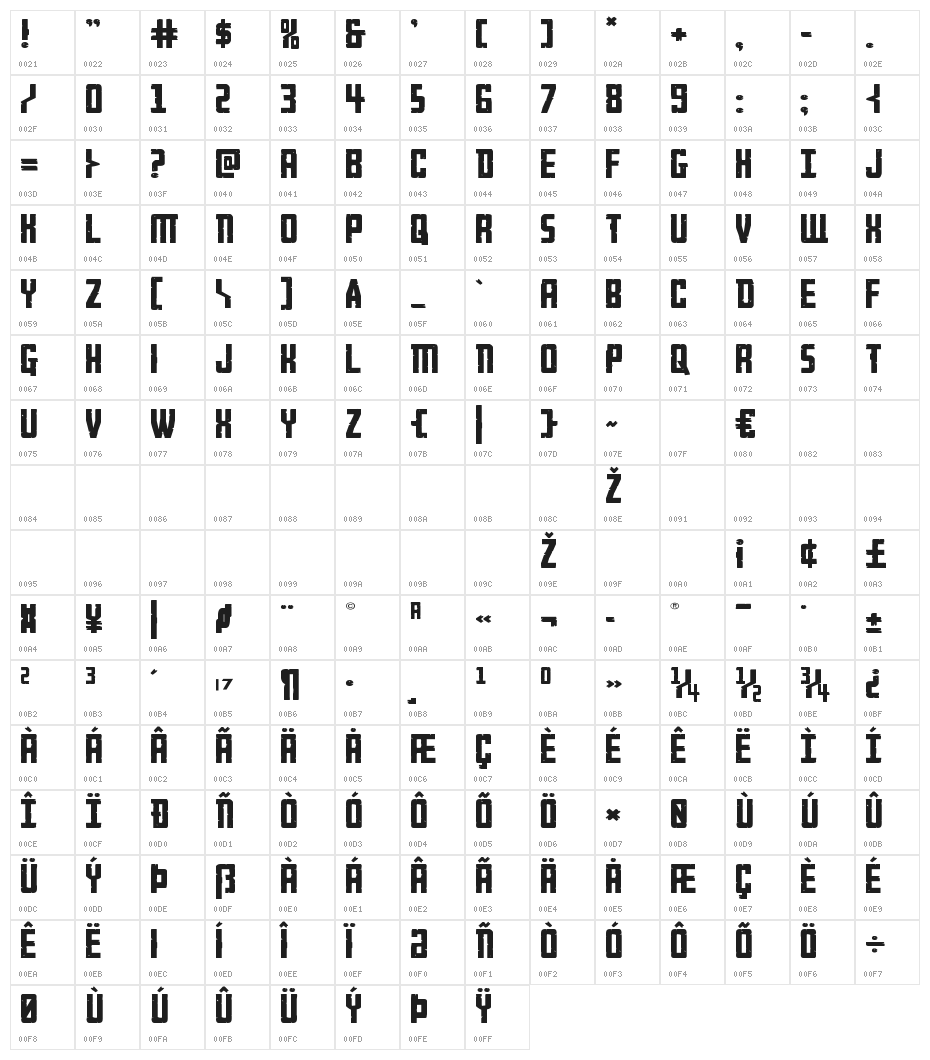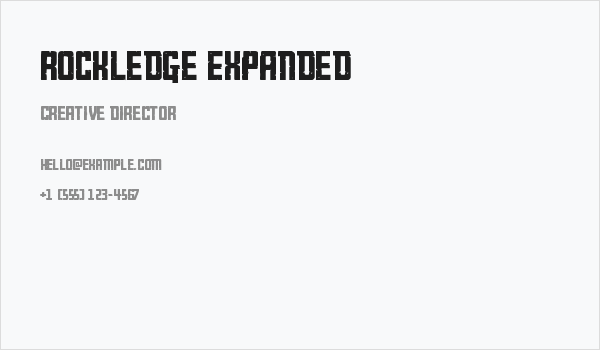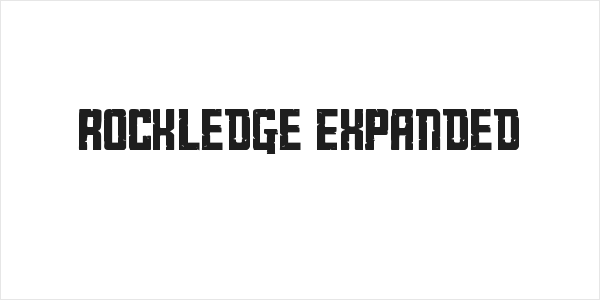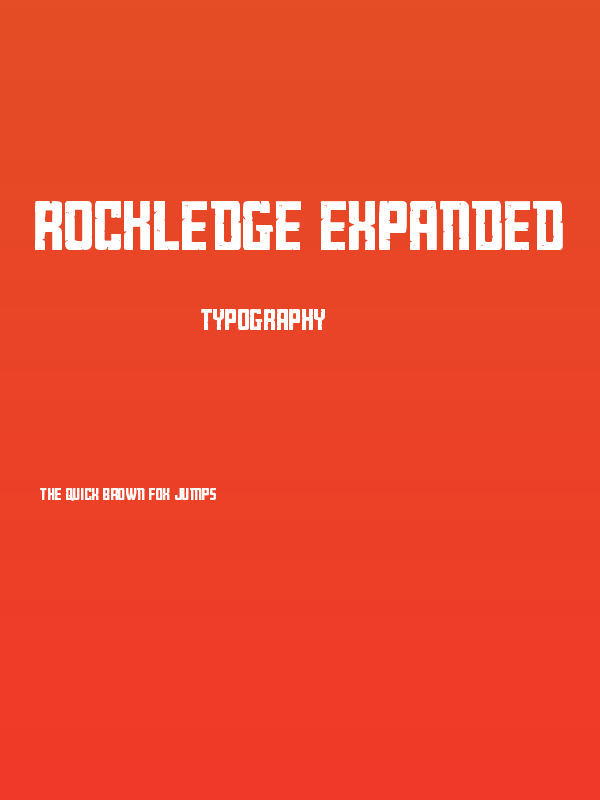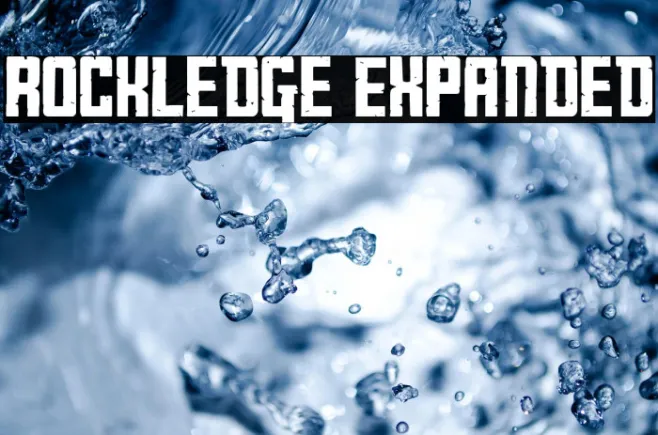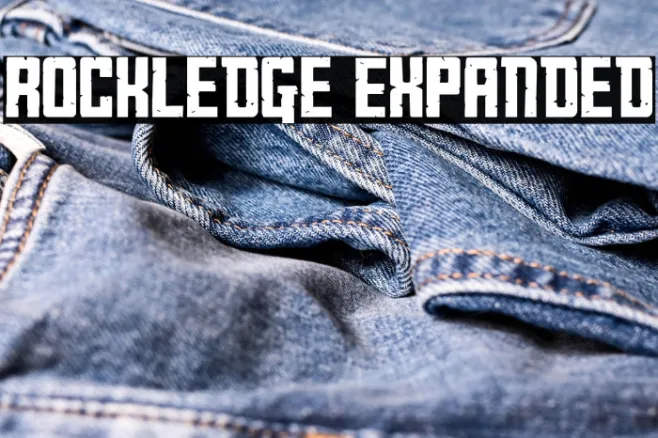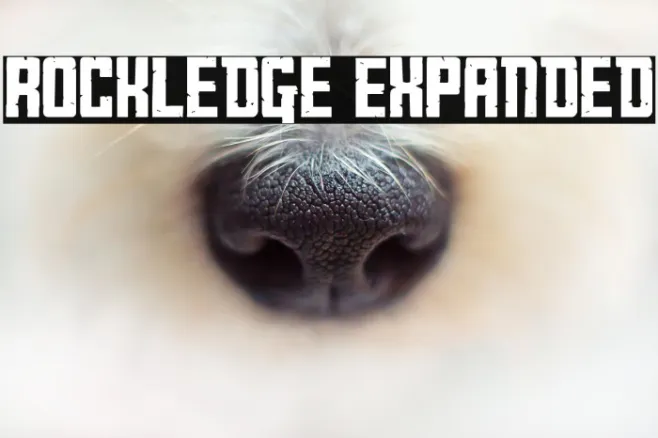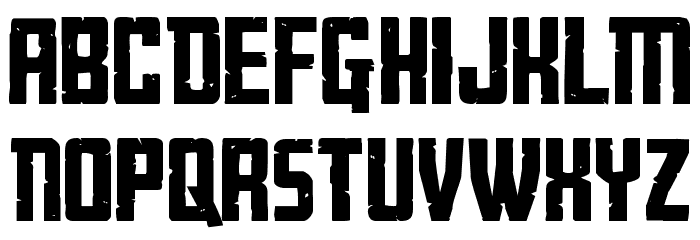
Rockledge Expanded Font
Rockledge Expanded Description
This font features a bold and rugged design with a distinctly industrial aesthetic. The characters are blocky and robust, with a slightly distressed texture that adds a vintage feel. The uppercase letters are uniform in height, while the lowercase letters maintain a consistent style, enhancing readability. The numerals and special characters follow the same bold and sturdy design, making them stand out effectively. This font's expanded width gives it a commanding presence, ideal for making a strong visual impact.
ROCKLEDGE-EXPANDED UPPERCASE
ROCKLEDGE-EXPANDED LOWERCASE
ROCKLEDGE-EXPANDED OTHER CHARS
| Proposed Projects | Ideal for posters, branding, headlines, and any project requiring a strong, impactful typeface. |